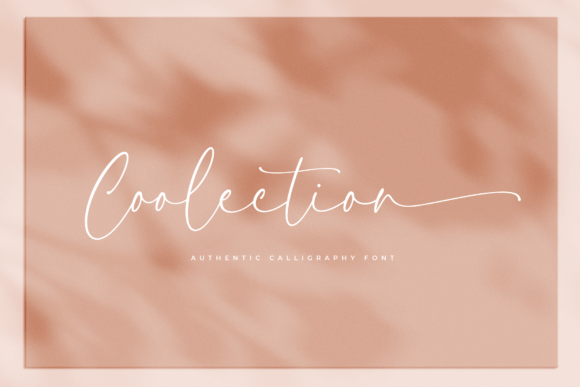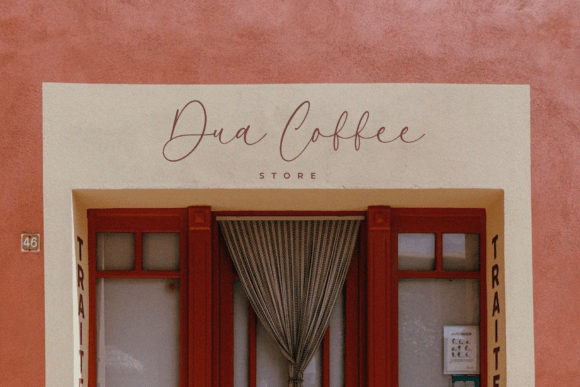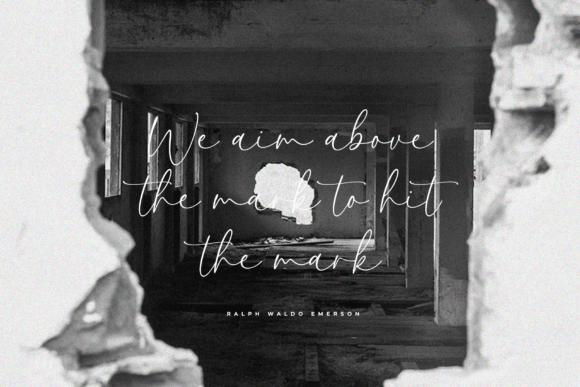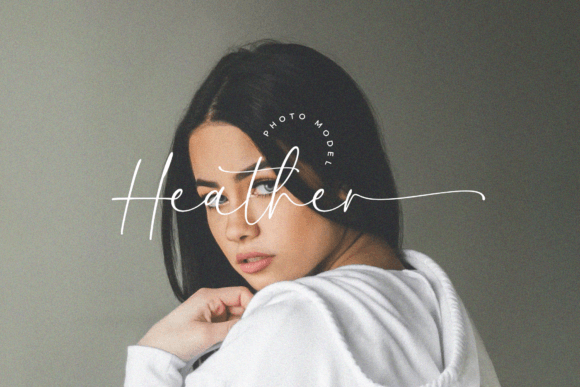
Coolection Font
About the Coolection Font
The wait is over! The incredible Coolection Font is now available for your design toolkit. Introducing Coolection Calligraphy Font, a harmonious blend of timeless beauty and modern elegance. With graceful strokes and delicate curves, it exudes authenticity. Enhance your designs with its captivating swashes and ligatures. Elevate your projects effortlessly with this font, perfect for invitations, branding, and more. Experience elegance redefined.
Coolection’s elegant yet slightly playful personality makes it ideal for branding projects requiring a touch of sophistication, particularly logos, short headlines, and packaging designs where its detailed curves can be appreciated. It also works well for invitations and short-form marketing materials. However, its delicate nature makes it unsuitable for body text or UI elements; the intricate details would be lost at smaller sizes and hinder readability.
Consider pairing Coolection with a clean sans-serif like Montserrat for a modern contrast, or a classic serif such as Garamond for a more traditional feel. For a playful touch, a geometric sans-serif like Futura could also work effectively. Avoid pairing it with other highly decorative fonts which would create visual clutter.
Its overall aesthetic is best described as sophisticated and charming, conveying a sense of refined quality without being overly formal. Projects targeting a discerning audience seeking a timeless yet approachable design would benefit most from its unique character.
Coolection Font Usage Examples
Coolection Font Example